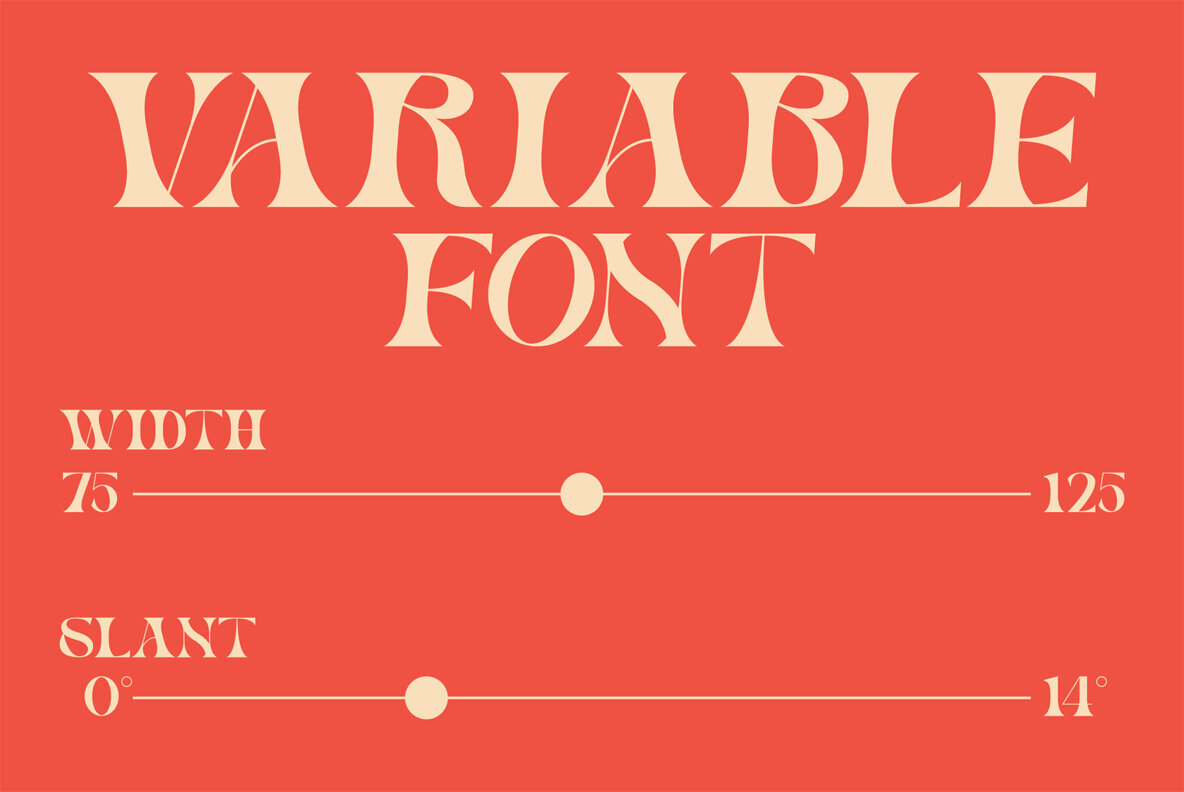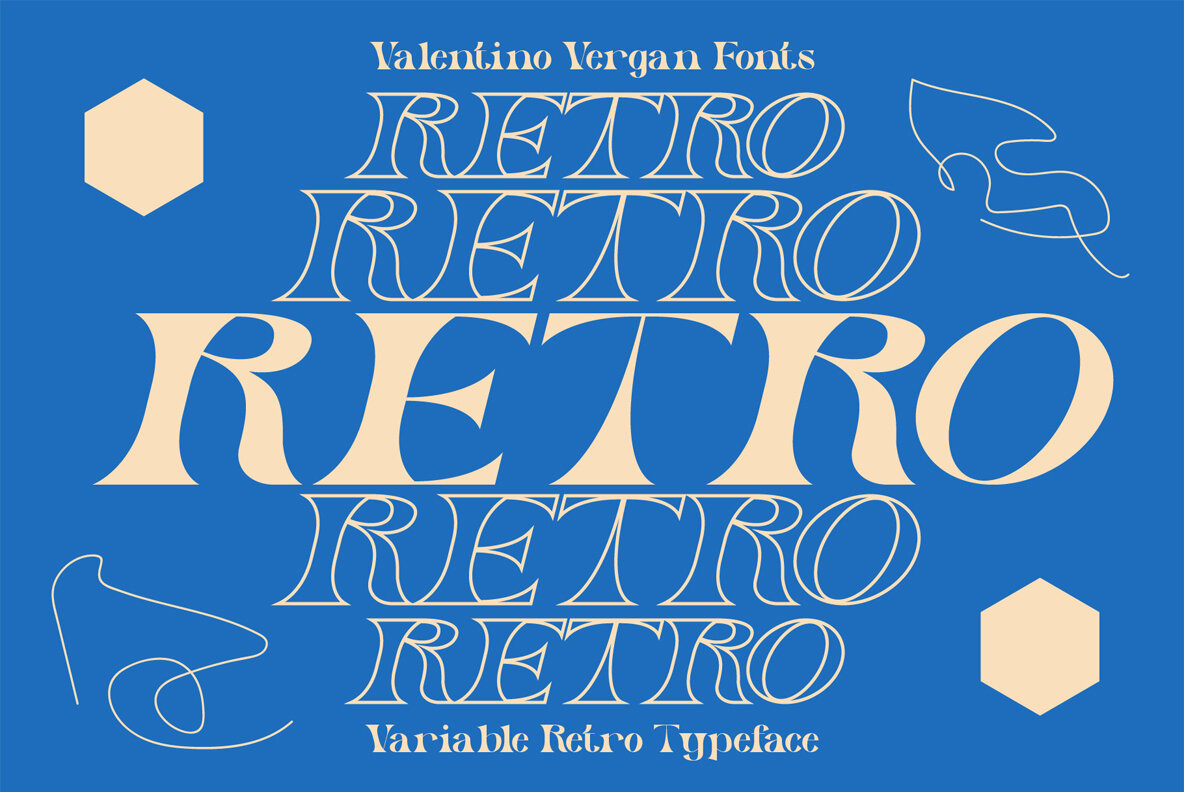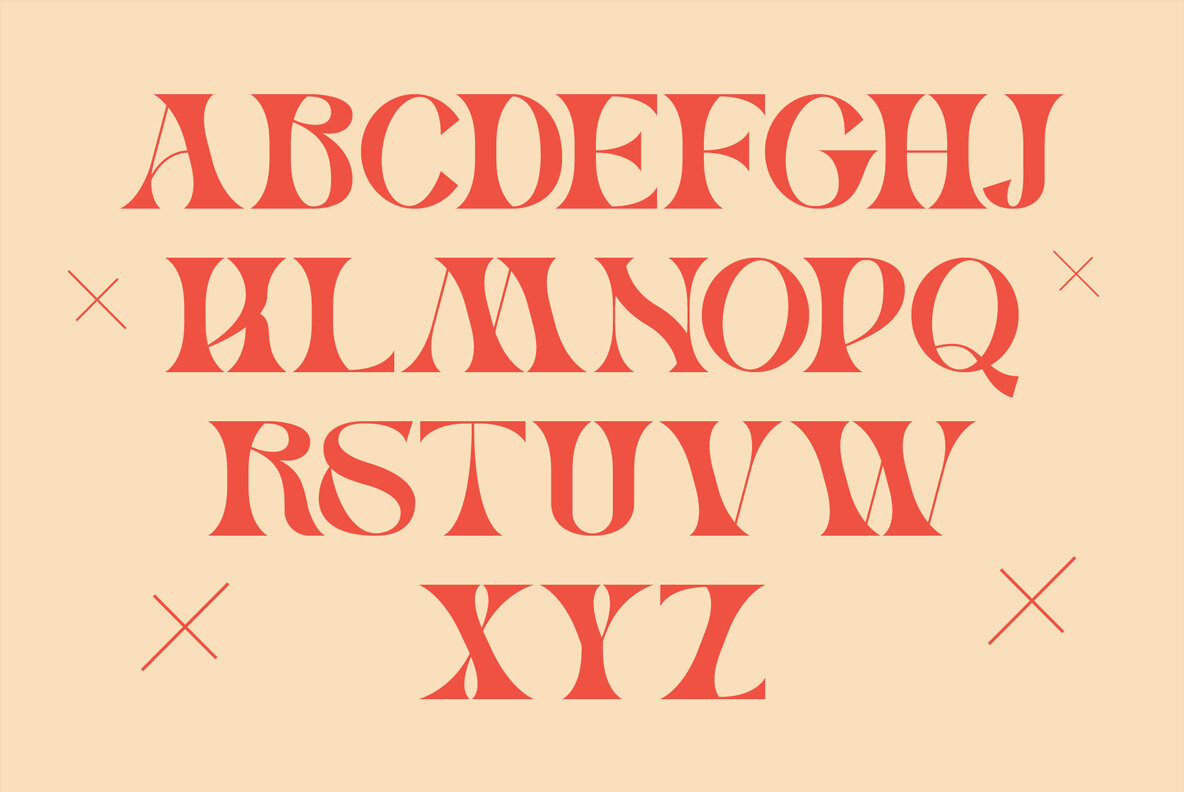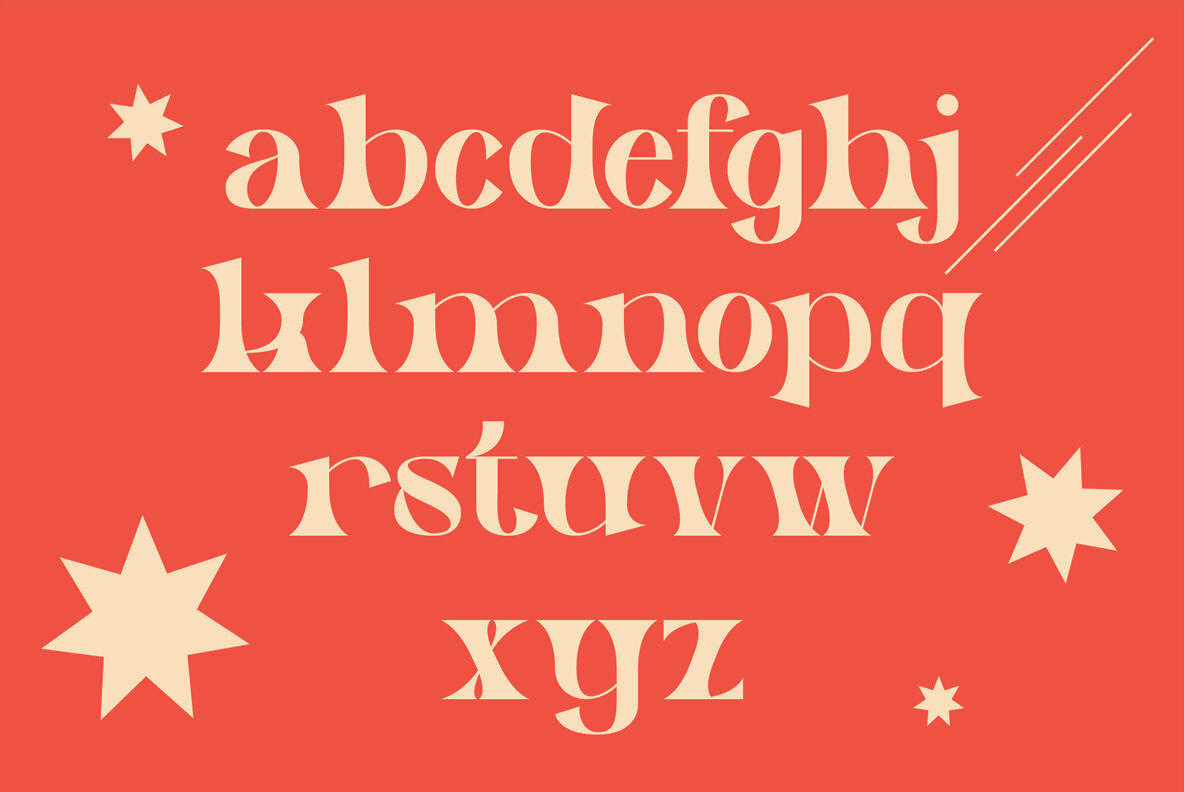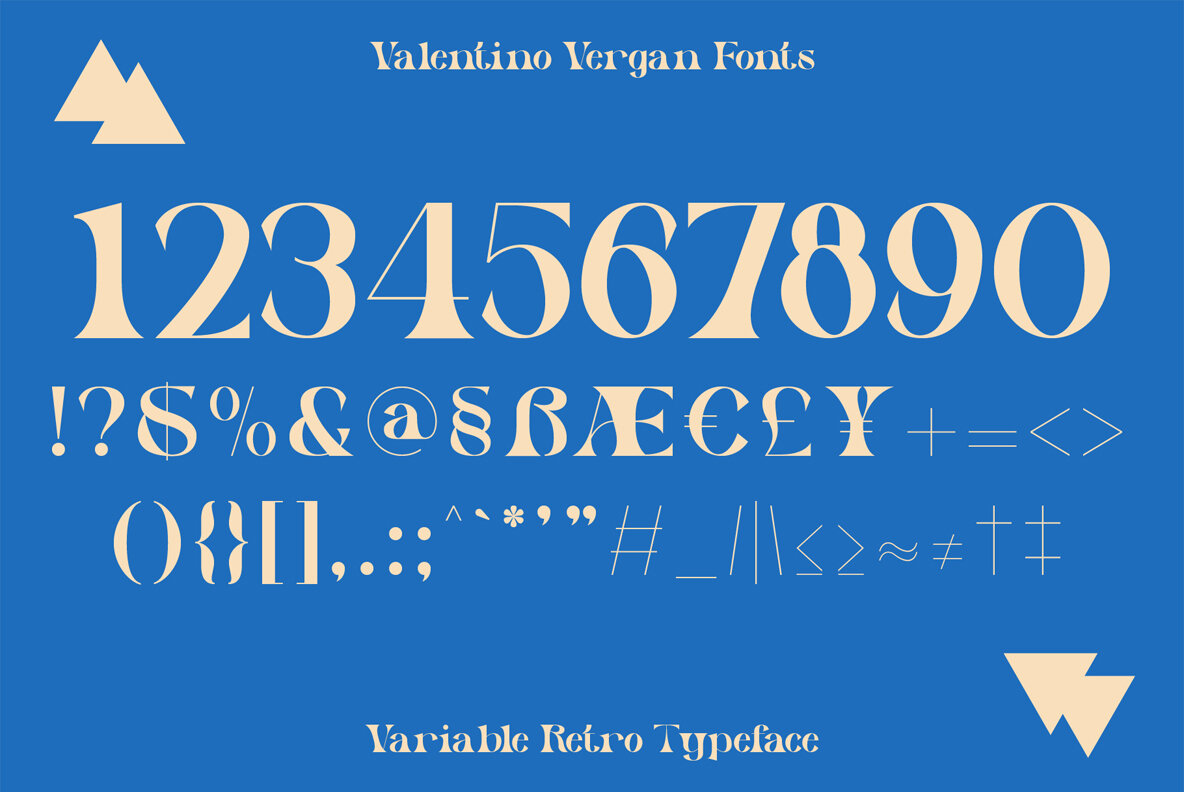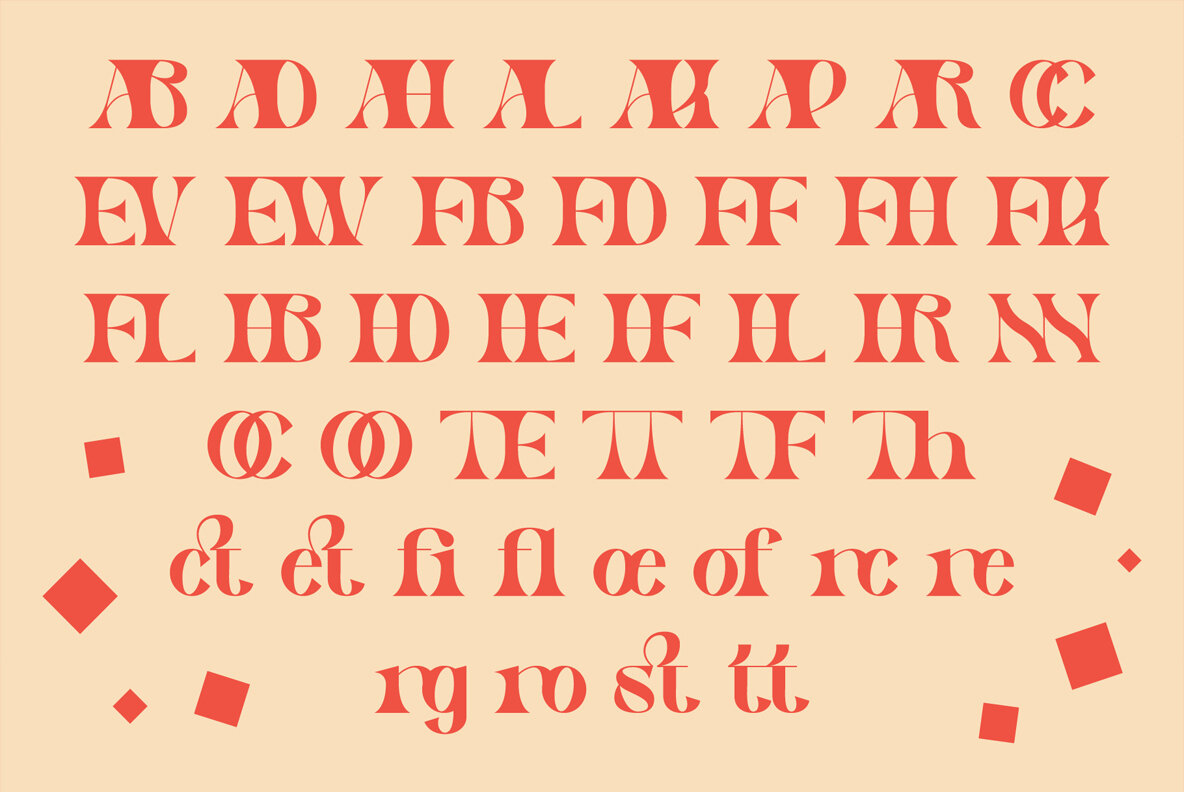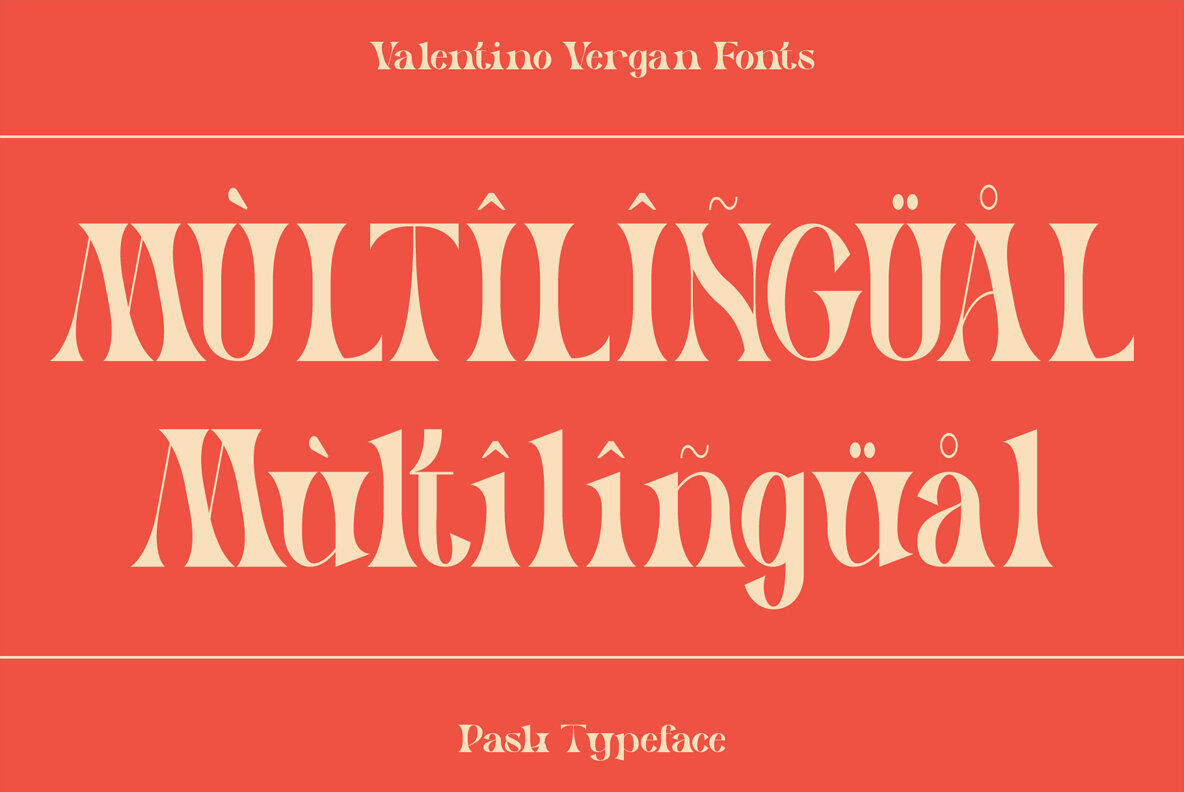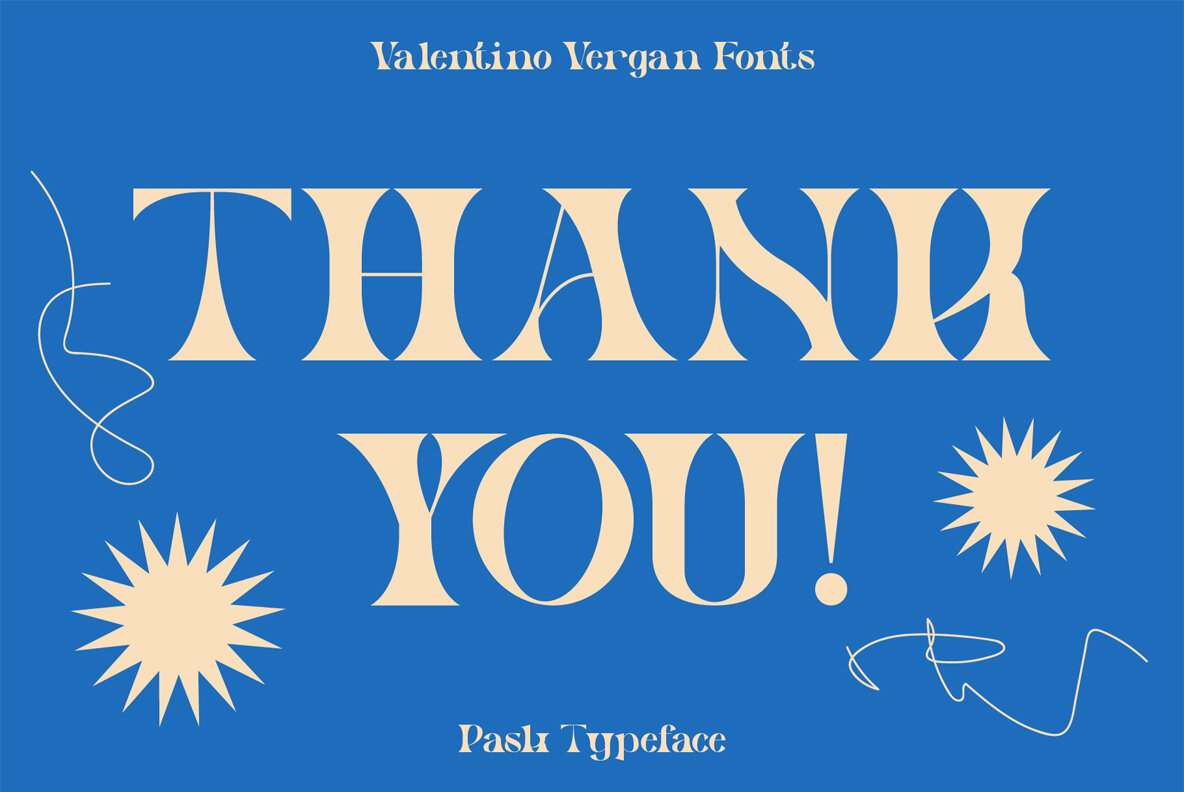
Introducing Pask, a retro-inspired variable font family with a bold, high-contrast design and thin hairline. Perfect for branding, mastheads, magazines, logos, blog posts, quotes, packaging, and ads. Pask offers standalone fonts and a variable version for adjustable width and slant, providing versatility for any project.